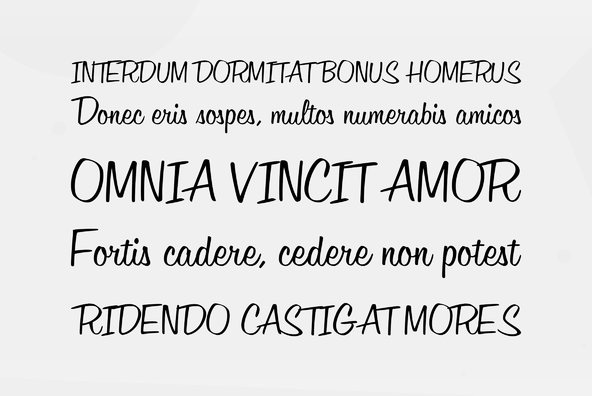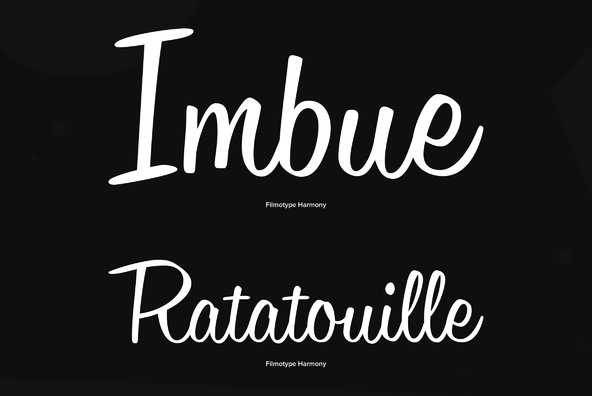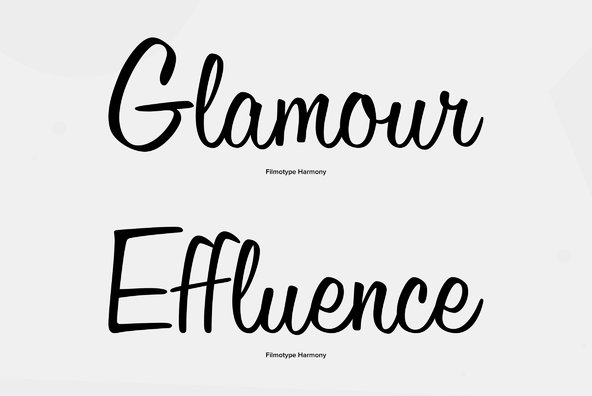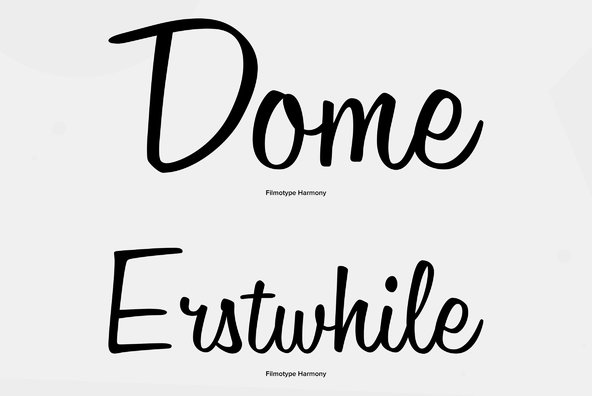
Filmotype Harmony was the first connecting handwritten script face released by Filmotype in 1950 originally designed by Ray Baker. Ray designed Harmony as a proof of concept that the Filmotype machine could be used to typeset convincing connecting scripts...
Filmotype Harmony was the first connecting handwritten script face released by Filmotype in 1950 originally designed by Ray Baker. Ray designed Harmony as a proof of concept that the Filmotype machine could be used to typeset convincing connecting scripts and it went on to become Filmotype’s most popular.
Filmotype Harmony was developed from the original font filmstrips and includes a full international character compliment, automatic fractionals, ordinals, and a large set of automatic alternate contextual characters and ligatures to allow flawless typesetting in dynamic OpenType format.